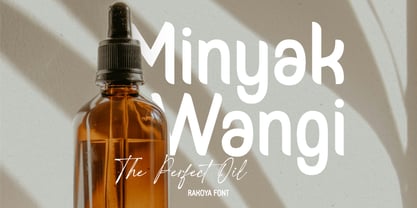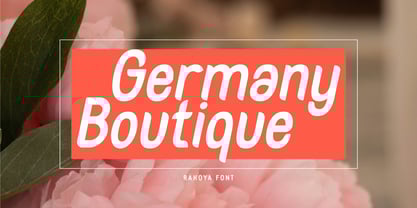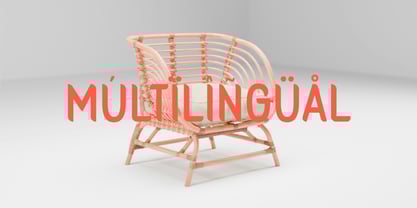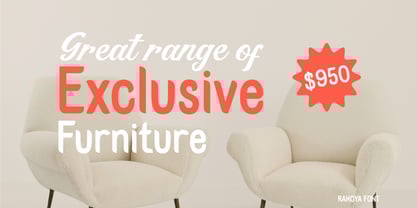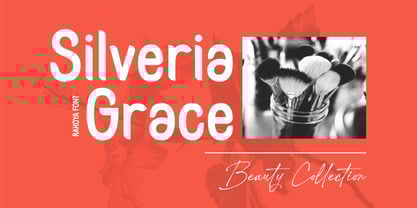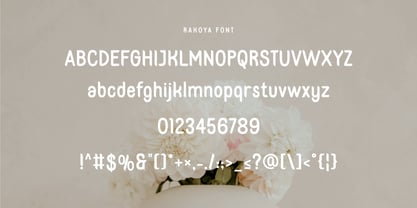
Rakoya
by Salamahtype
The Rakoya Font Family was designed by Aswangga Sadike and published by Salamahtype. Rakoya contains 2 styles and family package options.
Rakoya is a playful and modern display typeface that infuses warmth and character into any creative project. With its smooth curves, rounded edges, and unique letterforms, Rakoya combines a friendly personality with a strong visual impact, making it an ideal choice for branding, logo design, social media content, quotes, packaging, advertising, and poster layouts. The clean yet distinctive design of Rakoya ensures high readability, making it versatile for both digital and print applications. Whether you’re crafting bold headlines, cheerful product labels, or eye-catching Instagram posts, Rakoya brings a touch of fun and approachability to your work. Font Features: Rakoya Regular, Rakoya Oblique, and multilingual support enhance its usability across various platforms and audiences.